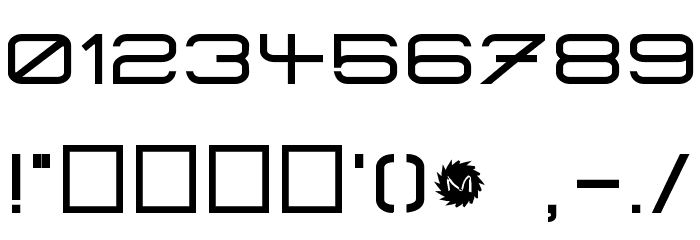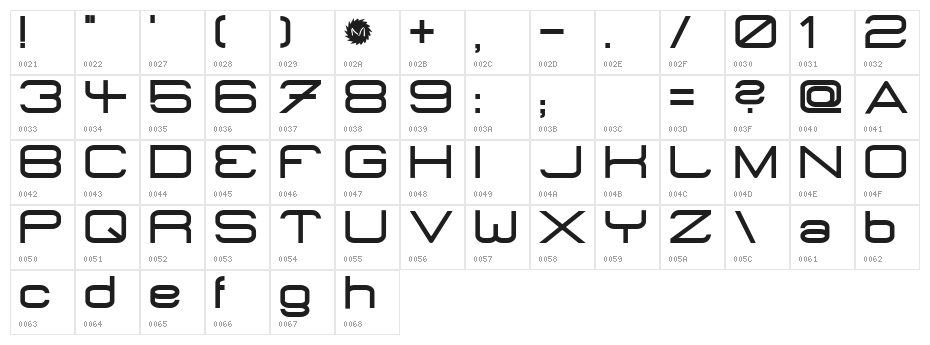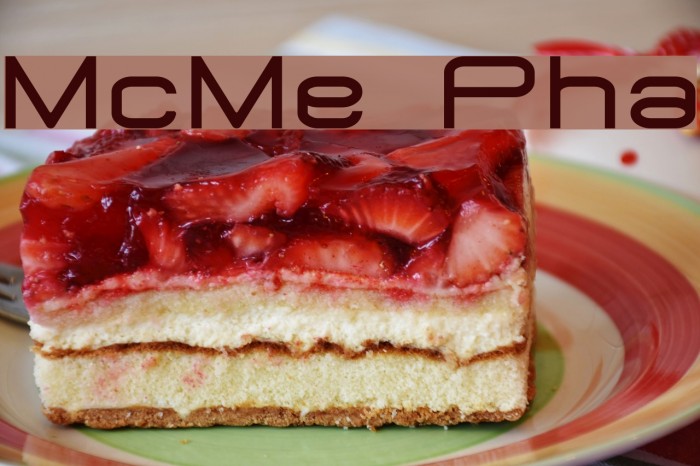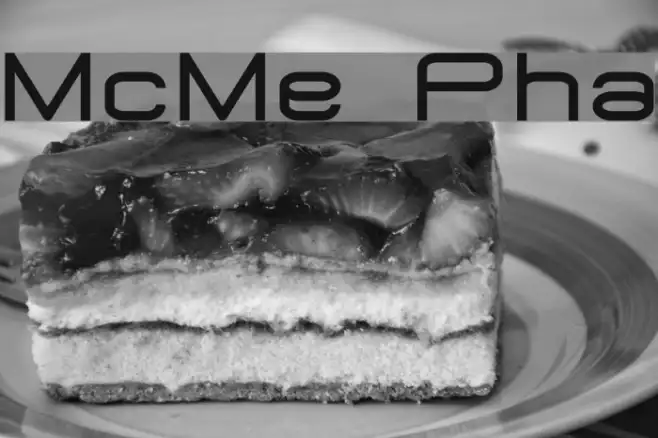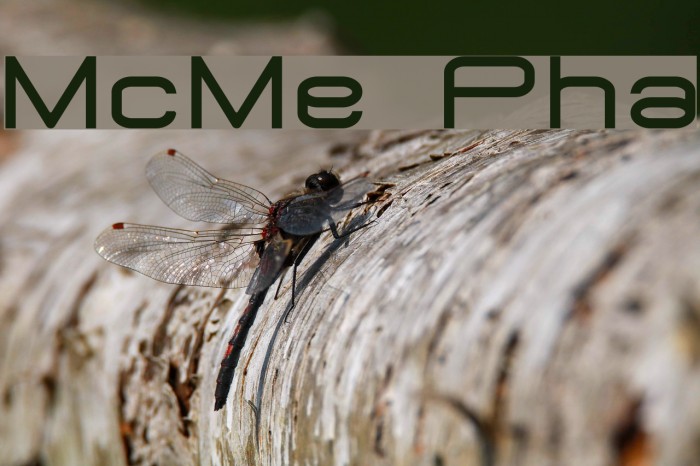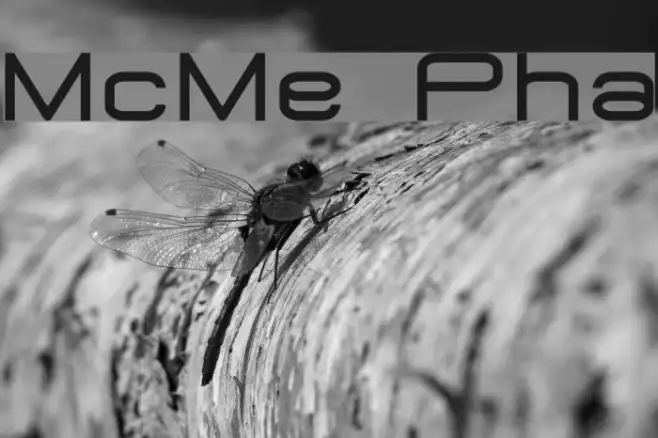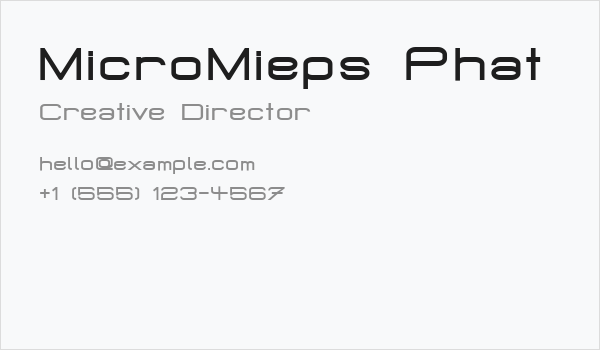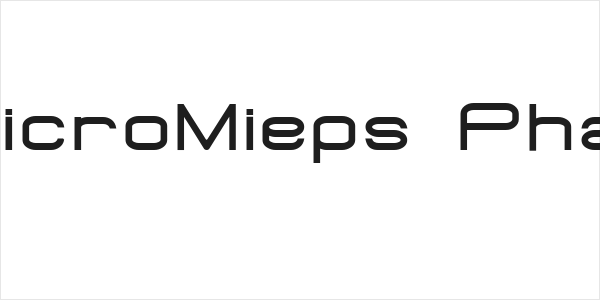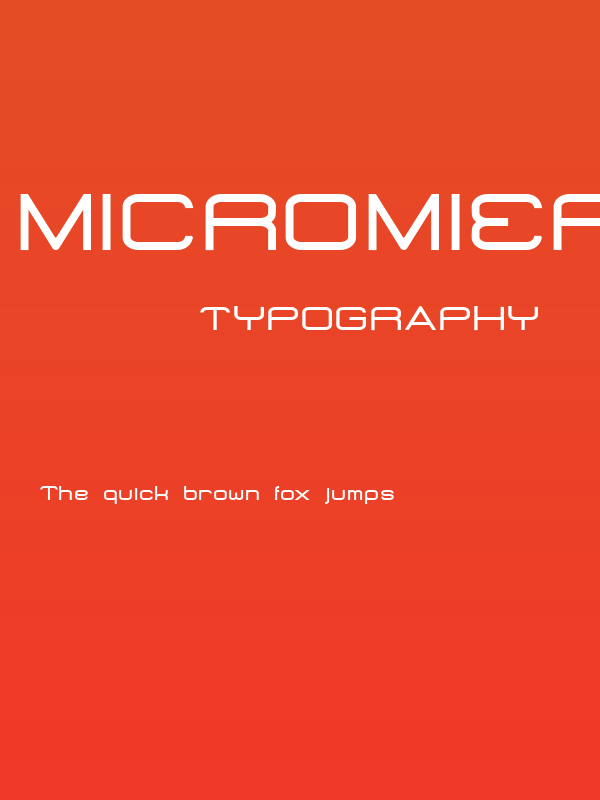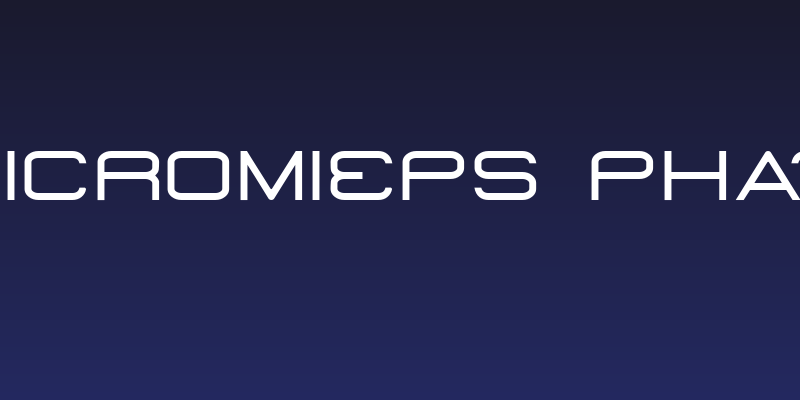
MicroMieps Phat Font
MicroMieps Phat Description
This font features a modern and futuristic design with a geometric structure. The characters are composed of clean, straight lines and rounded edges, giving it a sleek and contemporary appearance. The uppercase letters are uniform in height, while the lowercase letters maintain a consistent baseline with slight variations in height for certain characters. The numerals are distinct and easy to read, matching the overall style of the alphabet. Special characters are included, maintaining the same design ethos. This font is ideal for projects that require a modern and technical aesthetic.
| Use Case | Headlines, Logos, Digital Interfaces |
| Proposed Projects | Ideal for technology branding, digital interfaces, and modern advertising campaigns. |